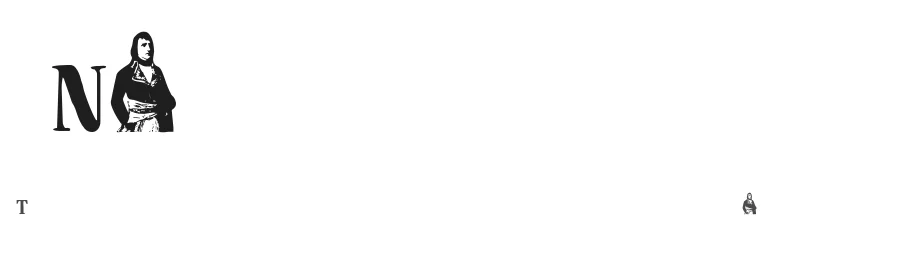
Deva Zheleznaya is a display font. It includes 110 glyphs, a regular weight, and TTF (TrueType) format. Deva Zheleznaya is free to download; check the license details on this page before commercial use. Display fonts like Deva Zheleznaya work best for logos, posters, headlines, and eye-catching social media graphics.
Deva Zheleznaya Font is a display font that shines as a display or heading face. Pair it with a clean sans-serif or serif font for body text โ the contrast creates a clear hierarchy while the two styles stay balanced and easy to read.
Deva Zheleznaya Font is a display typeface, ideal for logos, invitations, branding, and creative projects.